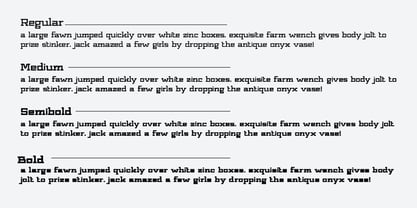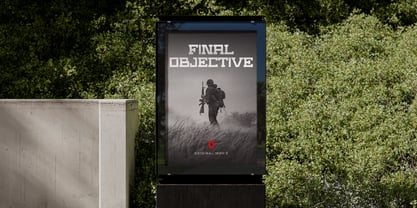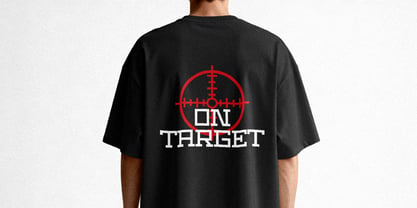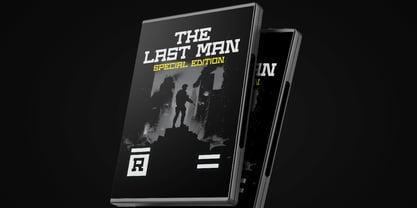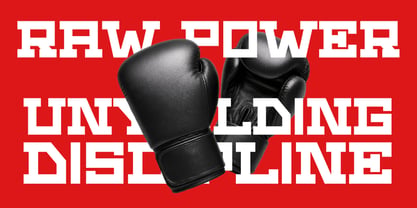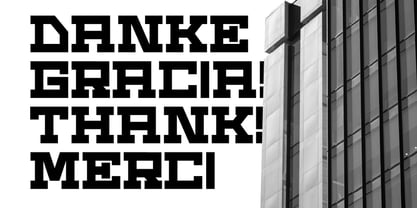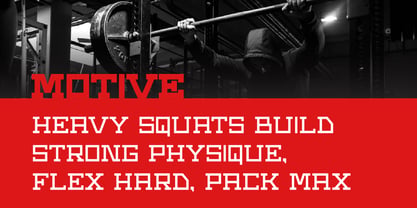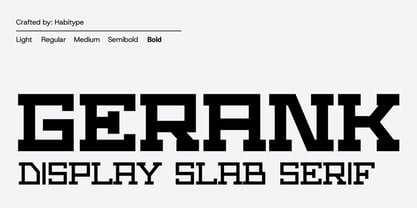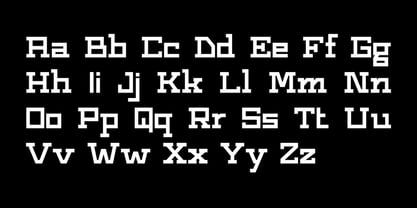
Gerank
Die Schriftfamilie Gerank wurde von Fahrul Saputra entworfen und von Habitype veröffentlicht. Gerank enthält 4 Stile und Familienpaketoptionen. Mehr über diese Familie
Most geometric fonts rely on soft, circular foundations. Gerank throws the circle out the window and builds from the ground up using rectangular, block-like geometry. The result is an aggressive, high-impact slab serif that feels grounded, tough, and impossible to ignore.
Gerank captures the essence of raw grit and modern tactical design. It contains 4 different weight ready to cover all of you design needs.